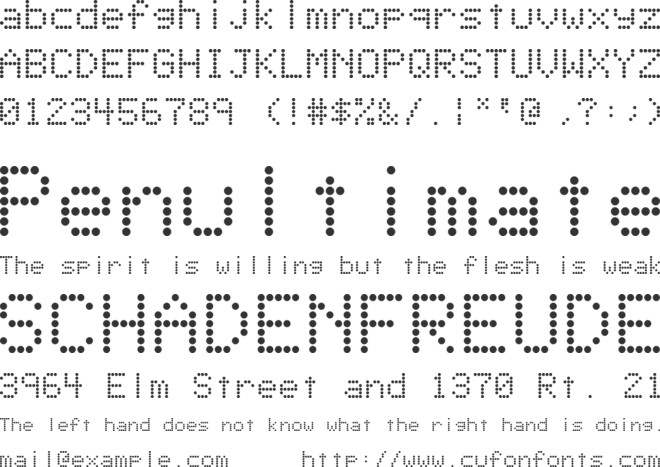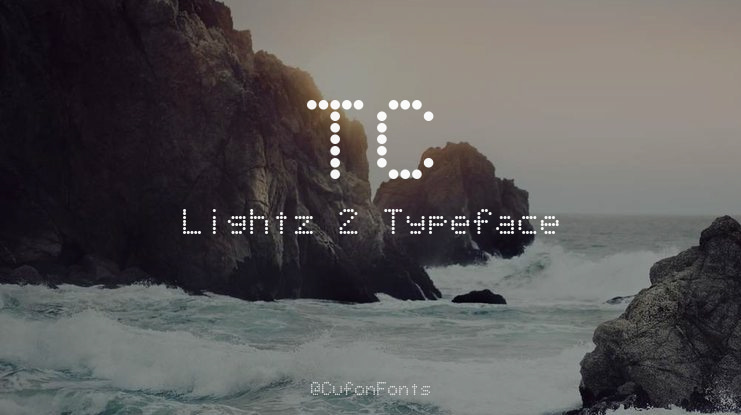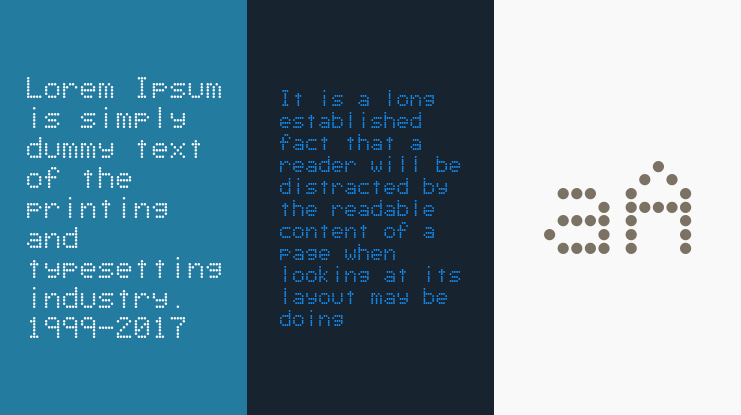
TC Lightz 2 Font
Lightz 2 is a redesigned and expanded LED-matrix typeface inspired by real-world hardware displays — the kind driven by 80s–90s transit signage boards or many LED signs. It preserves the rigid diode-grid geometry instead of smoothing it out. Every glyph stays faithful to discrete-LED behavior: fixed pitch, modular pixel blocks, and the authentic glow pattern.